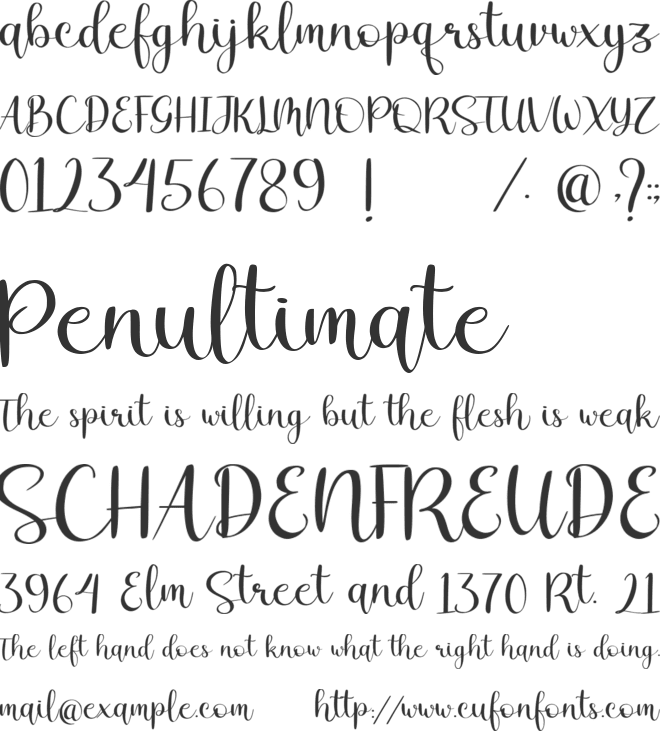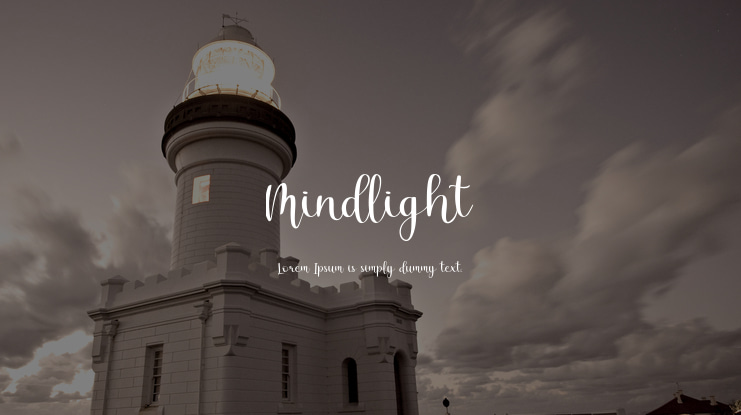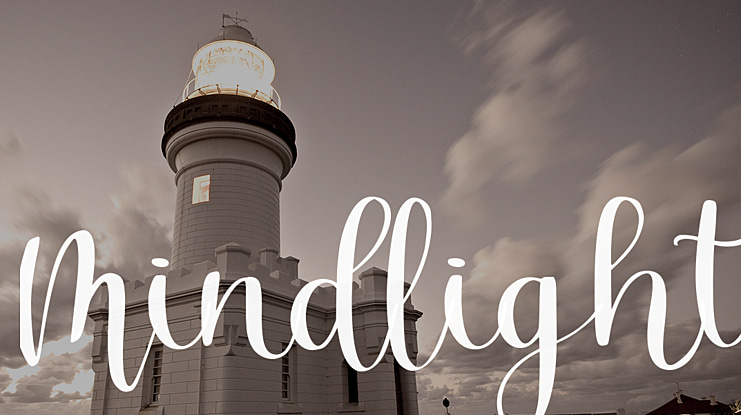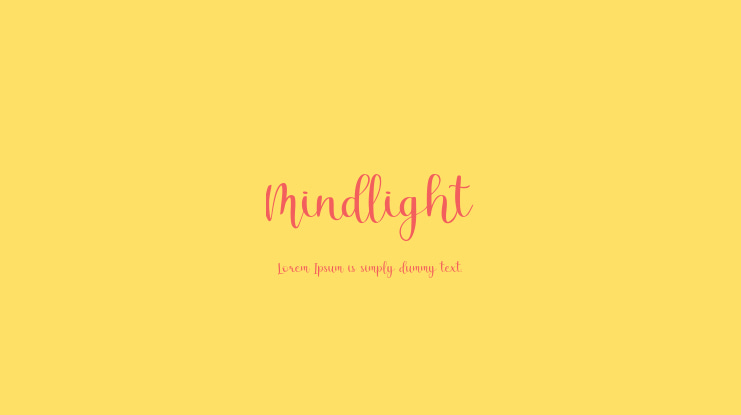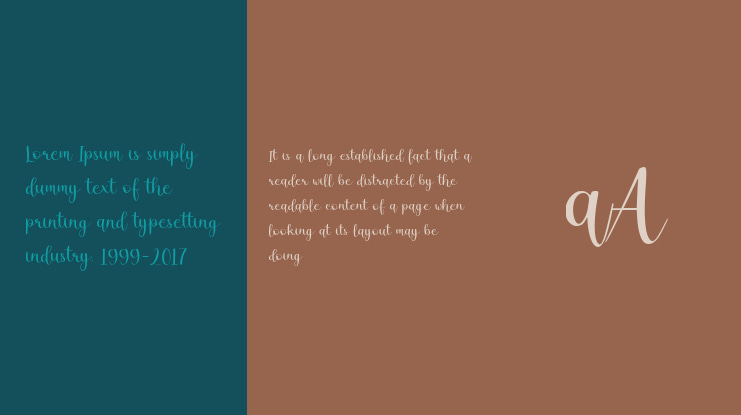
It’s a A Modern Handwritten Script Font. Mindlight is perfect for product packaging, branding project, megazine, social media, wedding, or just used to express words above the background.